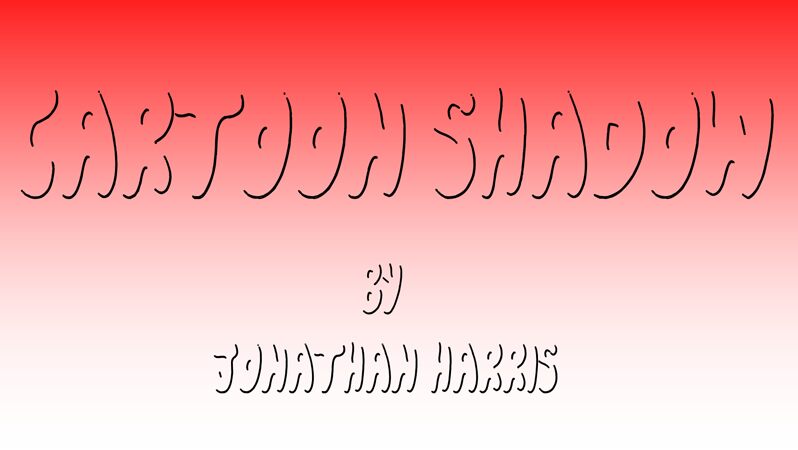
Cartoon Shadow from TattooWoo.com is a free cartoon display font with slender, wandering contours that reduce each letter to a few expressive strokes. Its open shapes look airy, loose, and deliberately unfinished.
Its elusive drawing can lend children's book covers a curious, offbeat quality, yet it also fits surreal music posters, experimental animation titles, and quirky event graphics. The sparse outlines will appeal most to illustrators and independent designers who want lettering to behave like part of a line drawing rather than a solid typographic block.